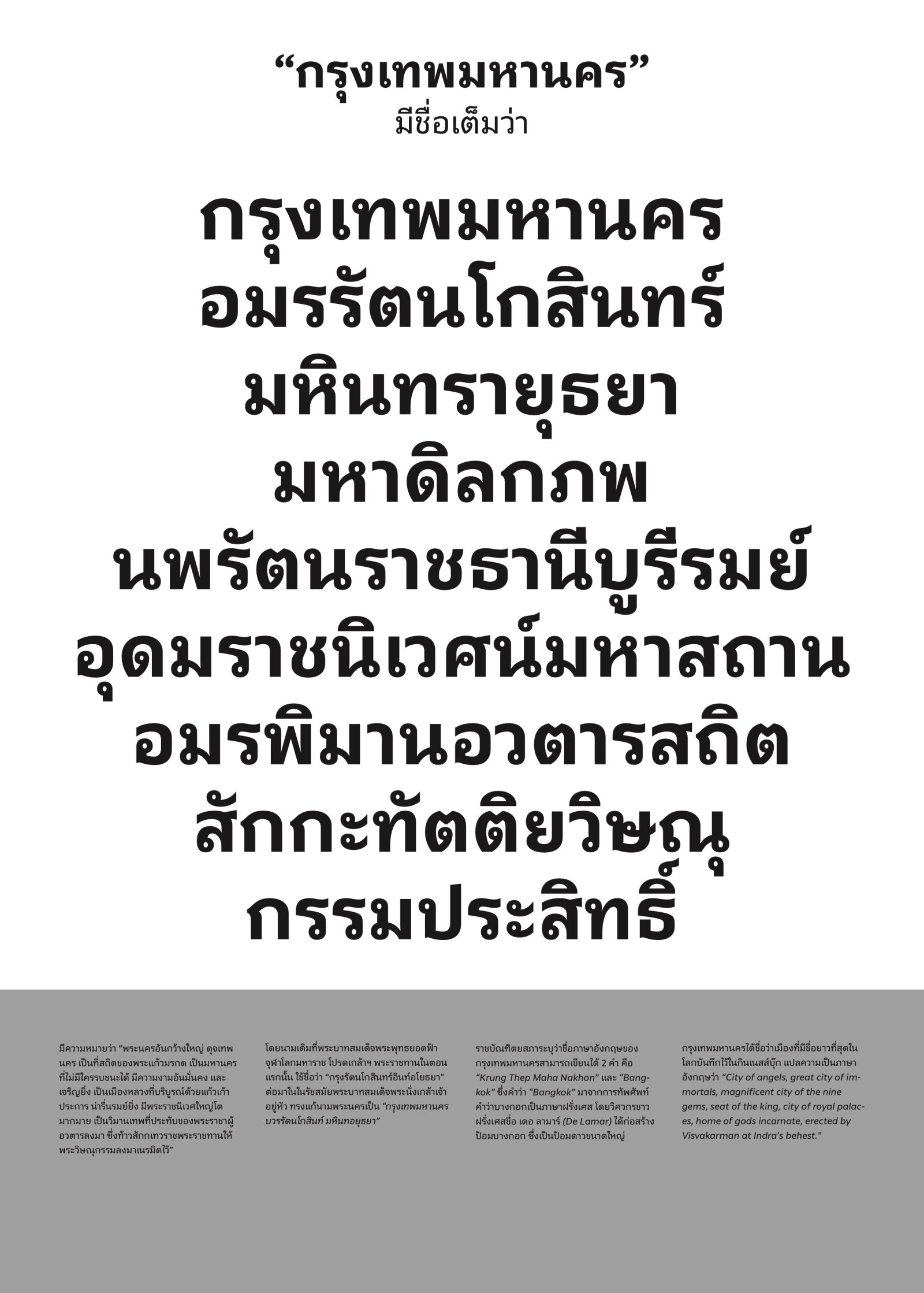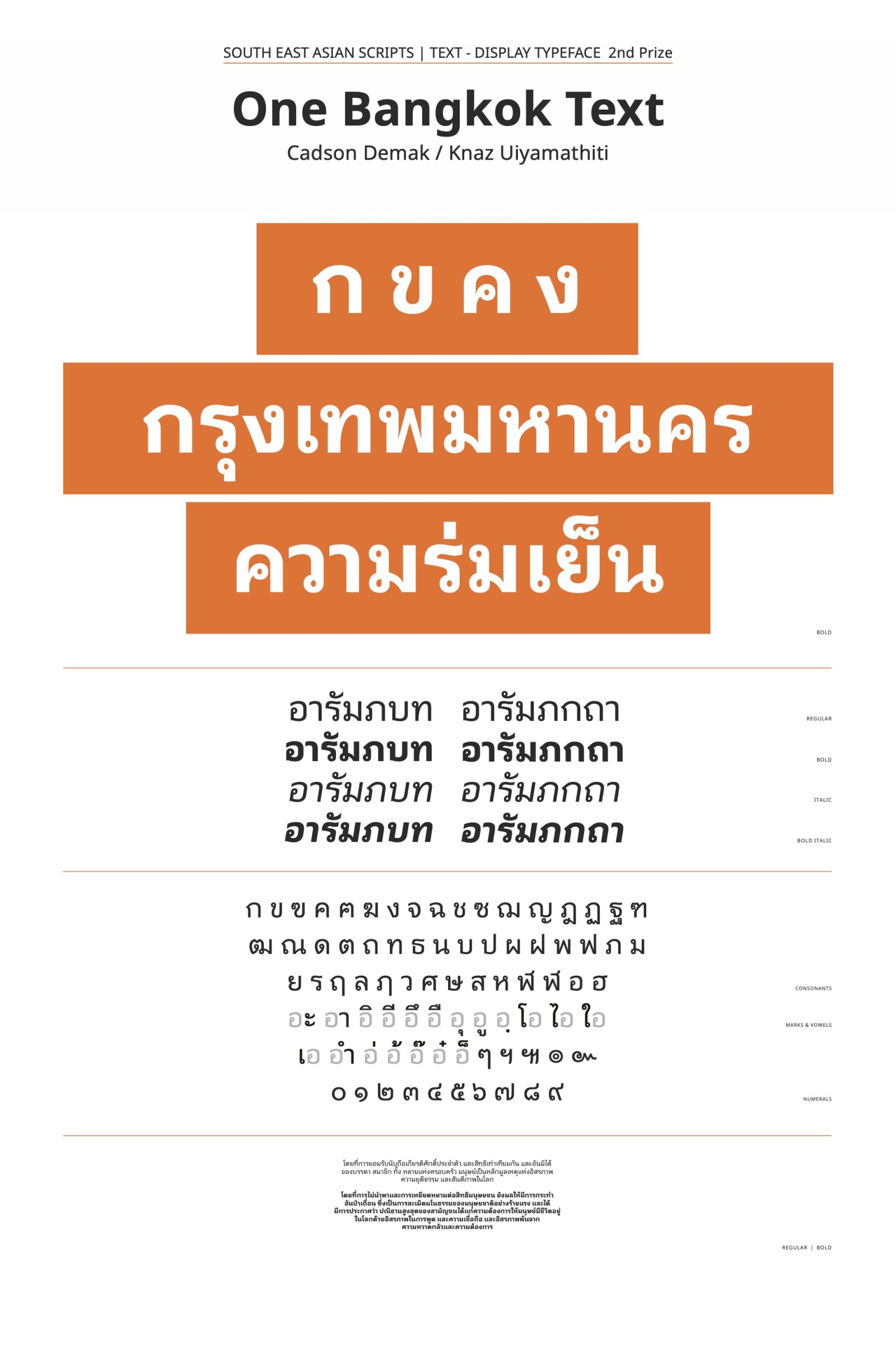
One Bangkok Text + Display
by Knaz Uiyamathiti
Southeast Asian Scripts
This font is a humanist Thai looped typeface that was designed for use as body text in public relations with a focus on mix-use consumers. It has 2 weights and 4 styles. This typeface was designed after its predecessor the display version, which required an accompanying body text that pairs homogeneously together. It was further improved for ease of reading by adding ink traps to reduce flares and increasing the spacing to allow more air through long texts. Distinctive features such as the decorative 'spurs' that are found from the brand’s original logo are lifted into the typeface as stylistic designs to ensure that they create a cohesive image with the logo.